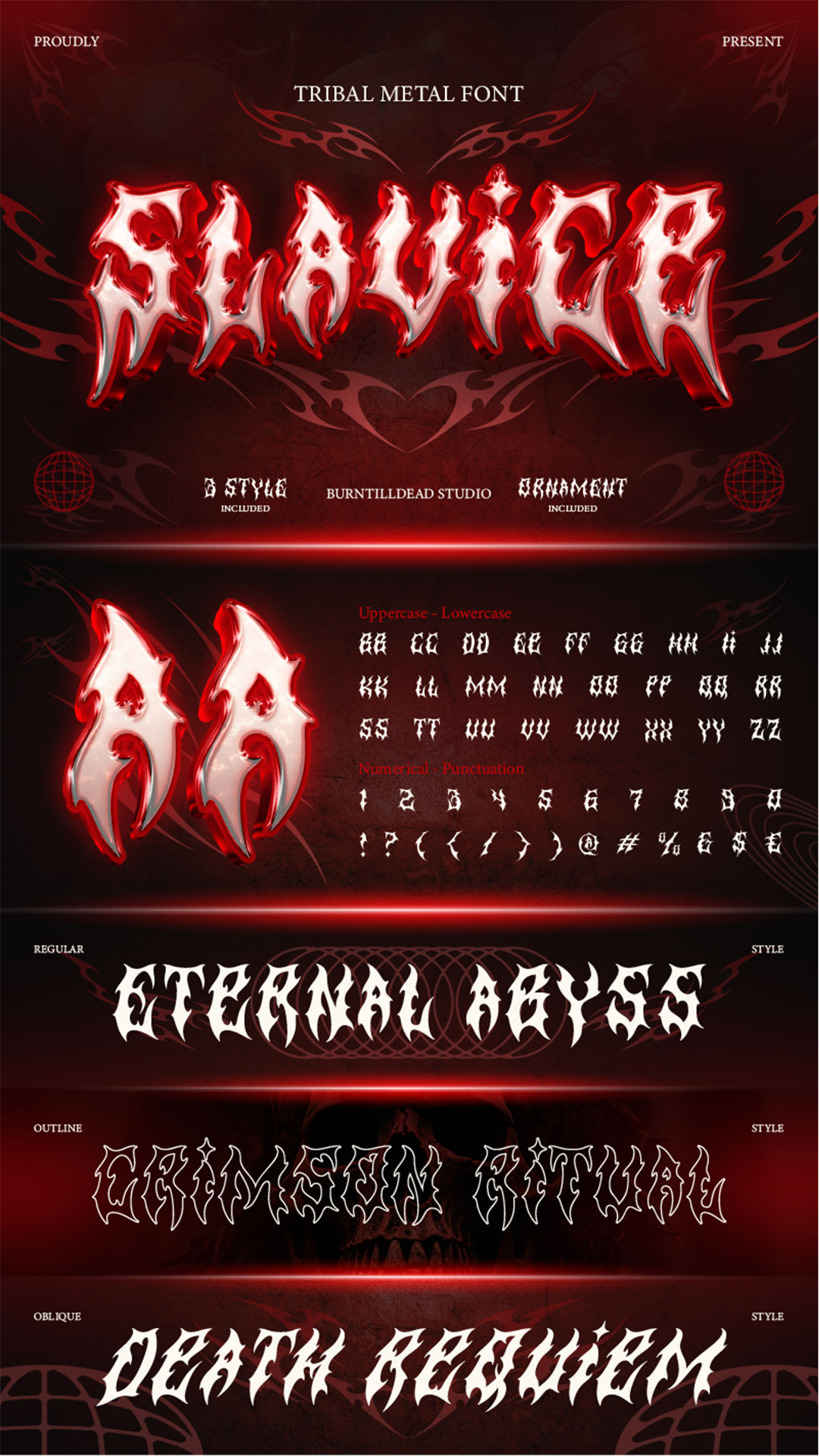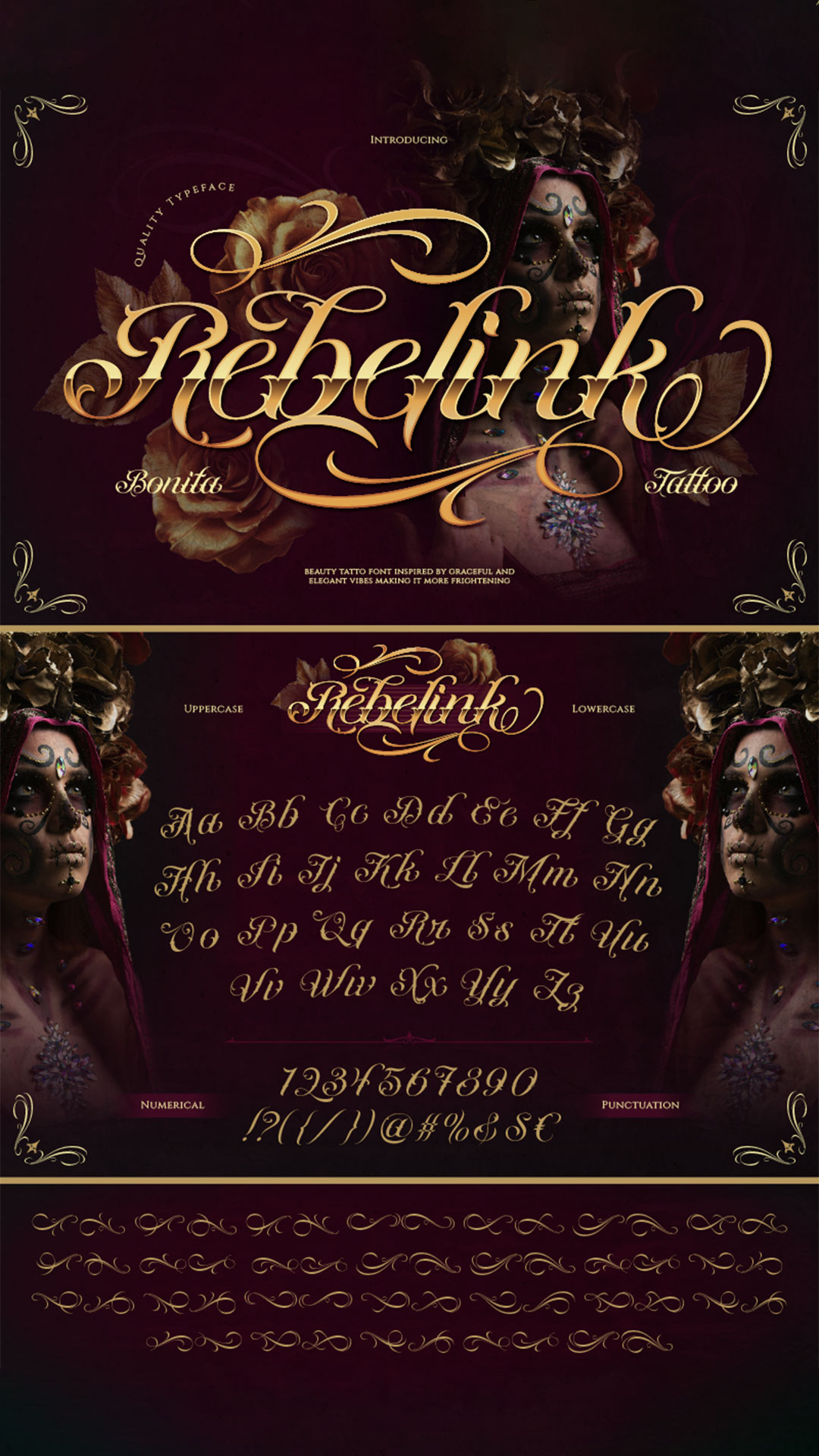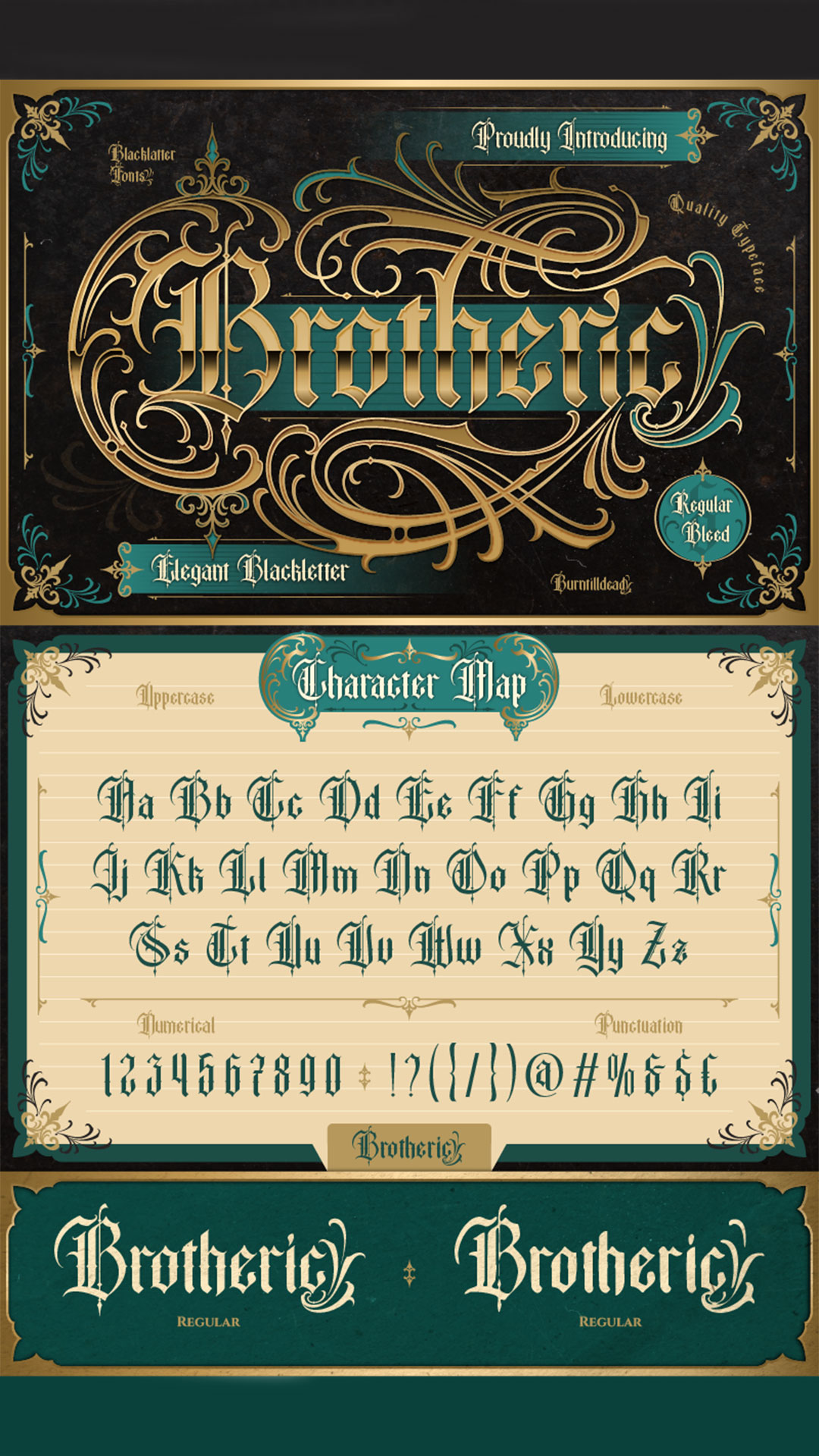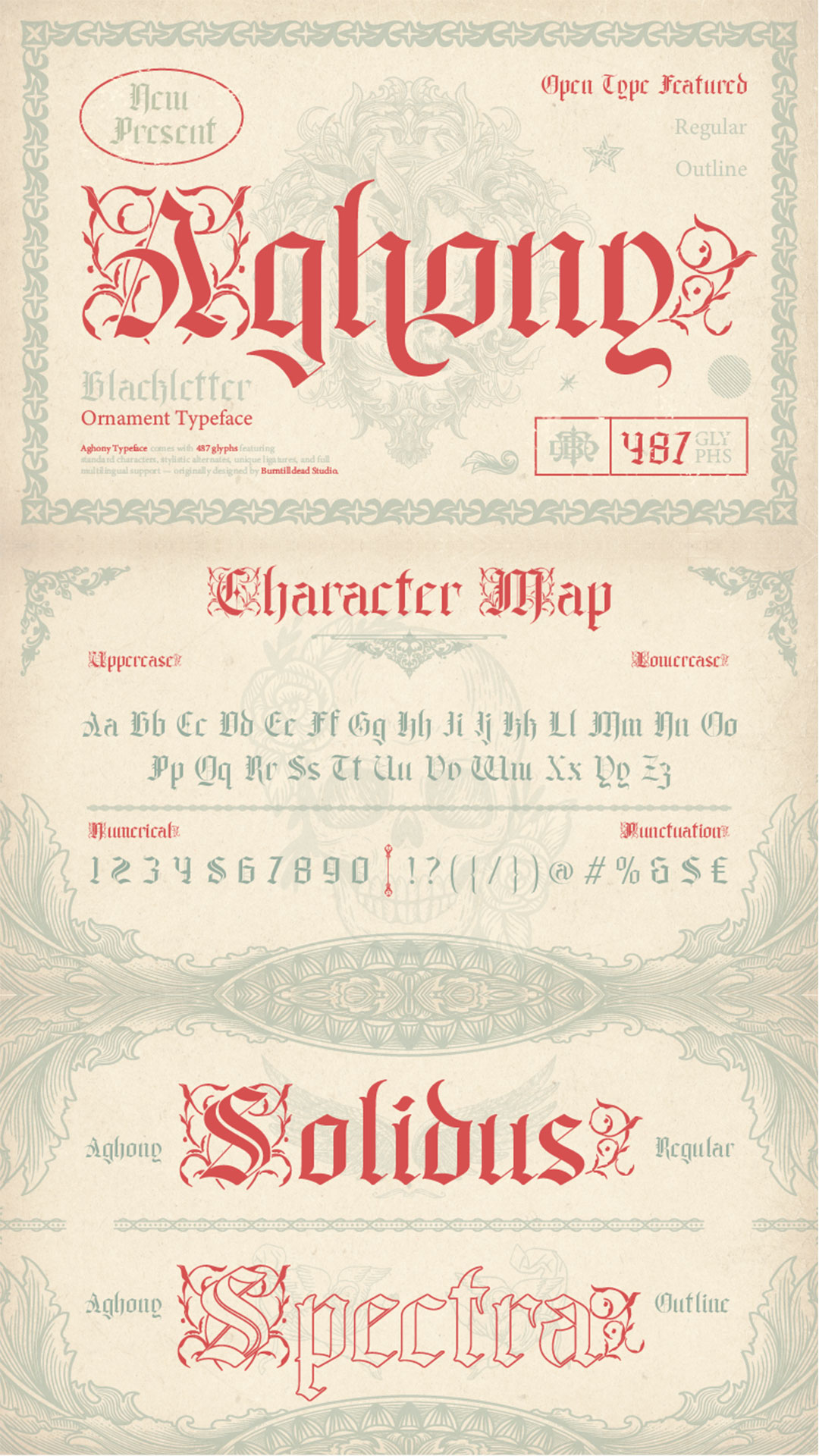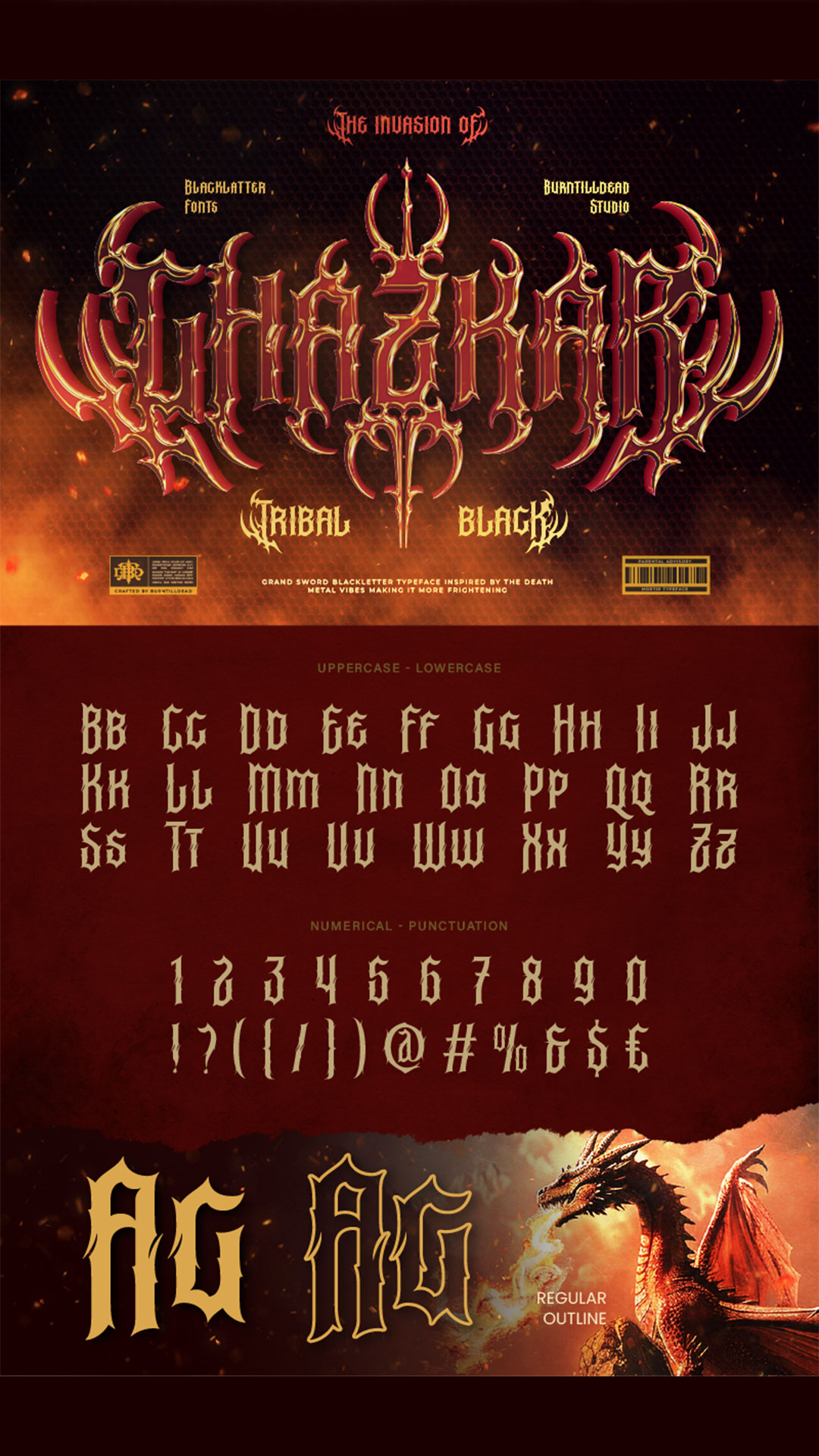
When it comes to tattoos, choosing the right font can make a big difference. Typography isn’t just about design it’s about expressing your style and making your tattoo more meaningful. If you’re planning to get a tattoo and want it to look artistic and unforgettable, here are 7 tattoo fonts you should definitely check out!
Rebelink, a beautifully crafted script tattoo font with a touch of blackletter and baroque flourish. The letterforms are flowing with sharp contrast in strokes and dramatic swashes, giving it an elegant and theatrical look. With a wide range of stylistic alternates, Rebelink is easy to customize and perfect for exploration in creative projects. Best used for display purposes such as tattoo studio logos, band/album covers (metal or Latin rap), or any design with a gothic or Latin-inspired theme.
Bethinae , a script font with tattoo style flair inspired by the bold shapes of blackletter. This font combines elegance and masculinity in a unique way, featuring detailed flourishes and stylish swirls. Bethinae comes in two styles: Regular and Ornaments. The ornament style adds an extra touch of luxury, helping your designs feel more refined and step into a whole new visual world. It carries a glamorous dark vibe, luxurious yet mysterious, like an elegant gangster tattoo or an exclusive club logo. Perfect for barbershops, tattoo studios, luxury garages, or streetwear branding.
Brotheric, an elegant and ornamental blackletter font. A beautiful blend of classic European forms and modern editorial style. Designed with strong letterforms and sharp angles, this font stays readable—even for longer texts. Brotheric brings a majestic and timeless feel, perfect for designs that aim for a “luxury meets vintage” aesthetic. It belongs to the gothic family, but with a refined tone that makes it versatile for many design styles. Ideal for tattoo designs, packaging, heritage branding, experimental magazine headlines, and music posters.
Bathory, a blackletter font that brings a bold sense of darkness, gothic vibes, and mystery. It features thick, ornamental strokes, sharp curves, and dramatic flourishes. Bathory comes in two styles: Regular and Oblique, offering visual flexibility for various design needs. Perfectly suited for fantasy, medieval, or occult themes, this font evokes the dark atmosphere of worlds like Dark Souls or Diablo, and is ideal for metal band posters. Commonly used for game or movie covers, metal music posters, festival flyers, tattoo designs, merchandise, book titles, or any branding that leans into gothic or mystical aesthetics.
Aghony, an artistic blackletter font with ornamental touches on each letter.
This font brings an elegant yet dark atmosphere, taking you back to the medieval era with a modern and expressive twist. Aghony comes in two styles: Regular and Outline.
The outline style is perfect for designs that need a lighter look while still keeping a bold visual presence — ideal for posters or large headers. Perfectly suited for themes like medieval/gothic, tattoo art, metal/hardcore album covers, vintage posters, or occult-inspired visuals.
Ghazkar, a sharp and dominant tribal blackletter typeface. This font features unique character details through extra elements like spikes, thorns, and vine-like motifs that blend seamlessly with its letter structure. Ghazkar comes in two styles: Regular and Outline, equipped with a wide range of ligatures and alternates to let your wild creativity flow freely. With its bold gothic style, this font is a solid choice for dark fantasy themes, heavy metal designs, tattoo artwork, gothic horror, or any branding that demands power and visual dominance. Feel the visual power of Ghazkar and let your design speak with untamed energy.
Slavice, a tribal metal font ready to break the limits of your creativity.
Designed with sharp details and wild curves, Slavice blends chaos and aesthetics into one brutal, aggressive, and masculine package.
Its fierce, spiky form is heavily inspired by the iconic look of tribal tattoos. This font comes in 3 styles: Regular, Outline, and Oblique – plus 2 tribal ornament styles: Regular & Outline. Slavice is made for design projects with dark, gothic, horror, underground music themes, band merchandise, gig posters, tattoo designs, and anything that craves bold and intense energy.